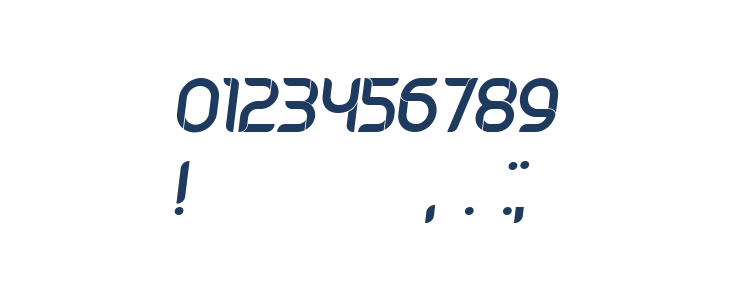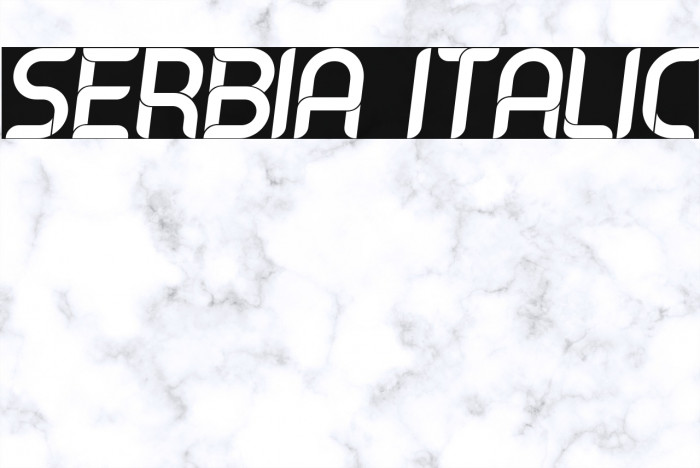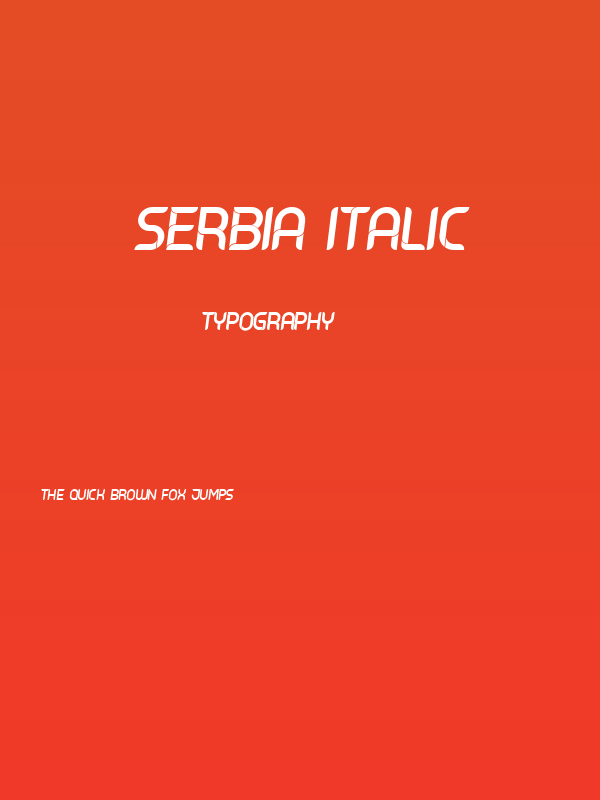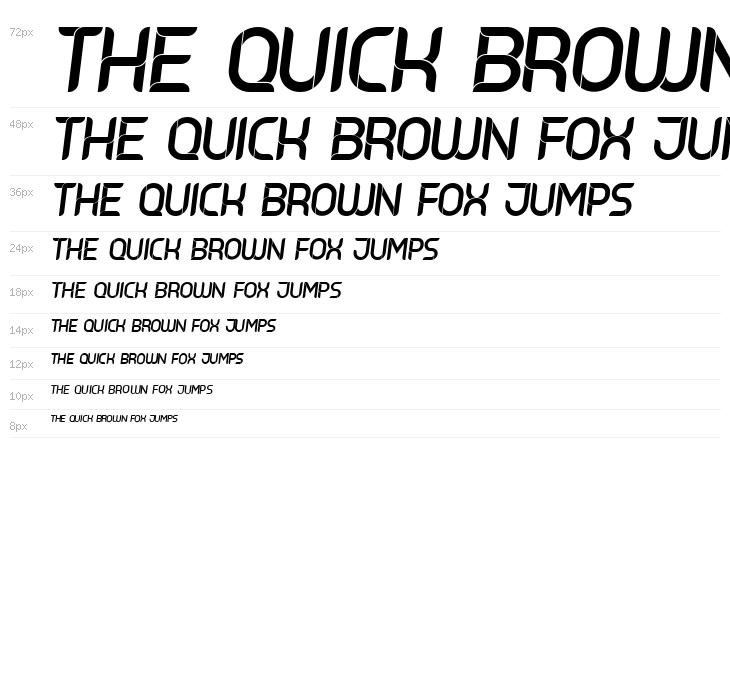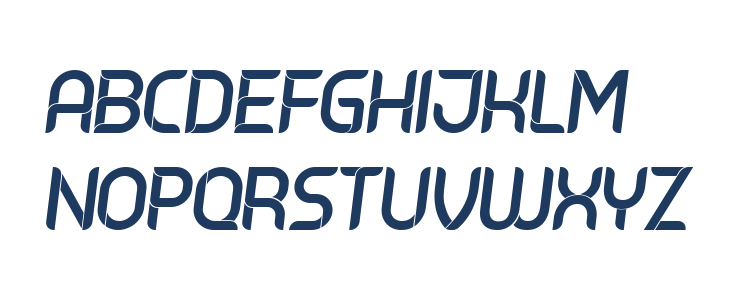
Serbia Italic Font
Serbia Italic Description
This font features a sleek, modern design with a distinct italic slant, giving it a dynamic and forward-moving appearance. The characters are crafted with a unique blend of curves and sharp angles, creating a futuristic feel. The uppercase and lowercase letters maintain a consistent style, with a slight emphasis on the vertical strokes, adding to the font's bold presence. The numerals are equally stylized, matching the overall aesthetic of the alphabet. The special characters are designed to complement the letterforms, ensuring a cohesive look across all text elements. This font's design is ideal for projects that require a contemporary and energetic vibe.
| Overall Style | Futuristic, Dynamic |
| Proposed Projects | Ideal for branding, advertising, and digital media projects that require a modern and dynamic look. |